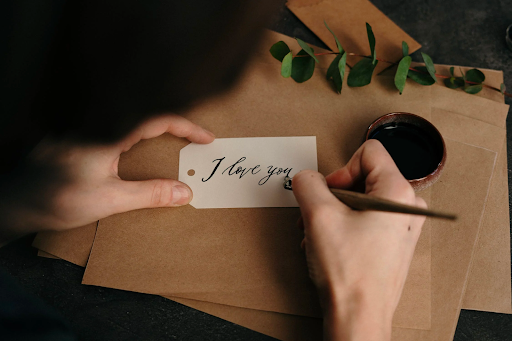
Every detail counts in expressing love and affection on Valentine’s Day. From heartfelt messages to creative designs, every element plays a crucial role in conveying the depth of emotions.
One often overlooked but significant aspect of Valentine’s Day card design is the choice of fonts.
The right font can set the mood, personalize your message, and enhance the overall visual appeal of your card. In this blog post, we’ll explore the world of fonts, including the graceful art of calligraphy, and share tips on the 8 most romantic fonts that you can use to make your Valentine’s Day cards truly special.
Why Fonts Matter for Valentine’s Day Cards
Fonts may seem like a minor detail, but they play a significant role in design, especially when it comes to expressing emotions. The choice of font can evoke feelings of elegance, playfulness, or romance, setting the tone for the recipient’s experience with the card.
Setting the Mood with the Right Font
Picture yourself getting a Valentine’s Day card with a striking, powerful typeface that shouts out passion and affection. Now, envision receiving a card with a delicate, cursive script that exudes elegance and sophistication. The difference in mood created by these valentines fonts is palpable. Choosing the right font allows you to establish the emotional atmosphere you want to convey.
Personalizing Messages Through Font Choices
Fonts are not just about aesthetics; they can also be powerful tools for personalization. Certain fonts may resonate more with your personality or the personality of the recipient. Choose a font that matches your relationship’s style, whether it’s classic and timeless or modern and playful.
Creating Visual Appeal for a Romantic Touch
Visual appeal is crucial in any design, and Valentine’s Day cards are no exception. Romantic valentines fonts can add that extra layer of charm, making your card visually captivating. The right combination of style, size, and spacing can turn a simple message into a work of art that captures the recipient’s attention and heart.
Criteria for Choosing Romantic Fonts for Valentine’s Day
Elegance and Sophistication
Romantic fonts often exude elegance and sophistication. Cursive scripts, delicate serifs, and refined details contribute to a sense of timeless beauty. Fonts like “Lover’s Script” and “Sweetheart Serif” embody this criterion, making them ideal choices for those who appreciate classic romance.